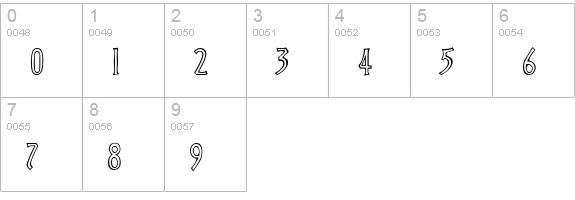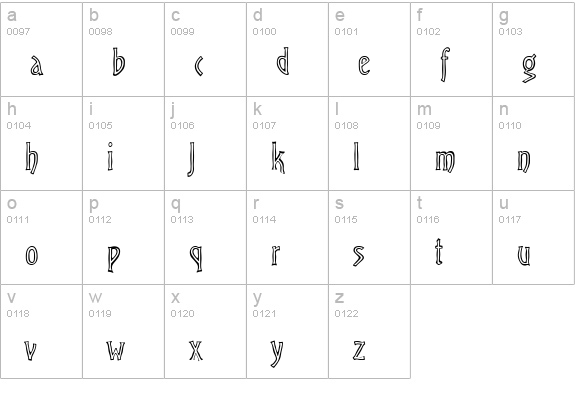
CgVirileOpen Font Details
CgVirileOpen is a modern and versatile font that exudes strength and sophistication. With its clean lines and bold presence, this typeface adds a touch of elegance to any design project. Whether you're creating a logo, poster, or website, CgVirileOpen will make your text stand out with its unique style. The best part? CgVirileOpen is completely free to download at FontsMarket.com. This means you can access this high-quality font without any cost, making it a fantastic choice for designers on a budget. Don't miss out on the opportunity to enhance your creations with the striking appeal of CgVirileOpen. Download it today and elevate your design work to the next level.